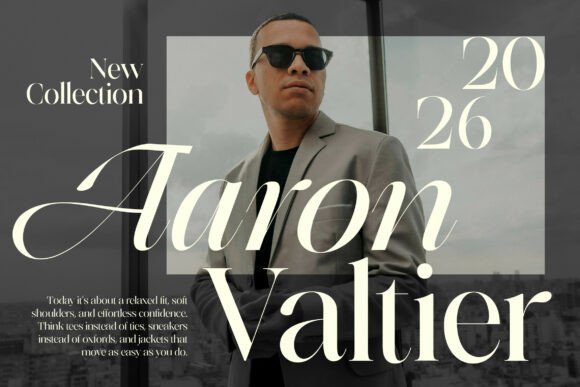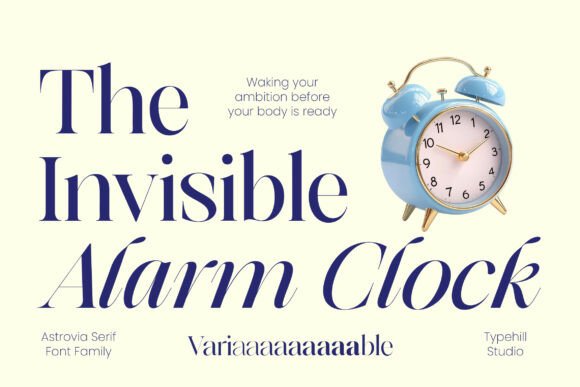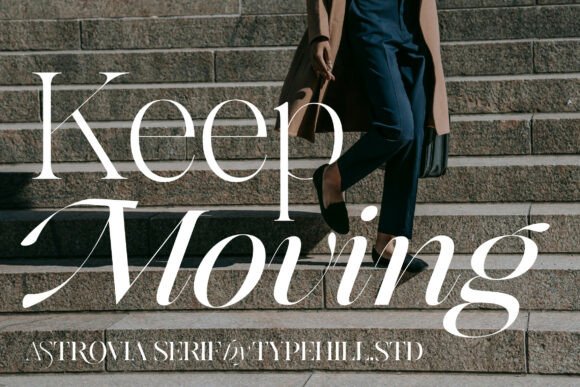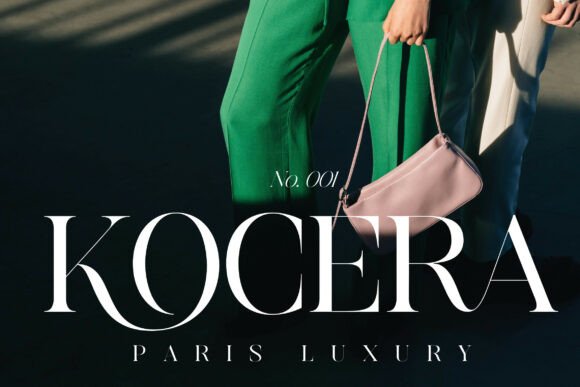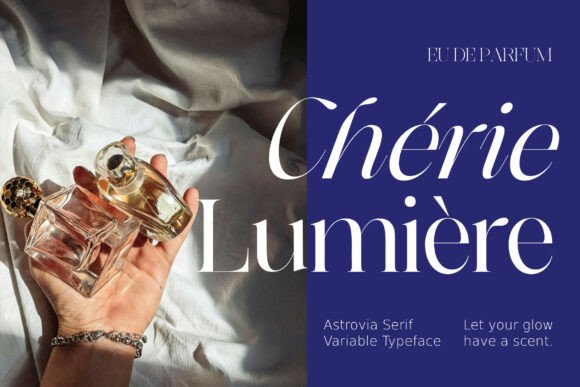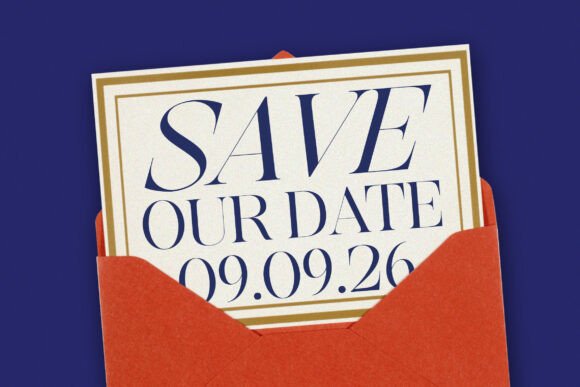
Unlocking the Power of Astrovia Serif Font
Imagine you’re pouring your heart and soul into a design project, but the right font is missing to bring it all together. That’s where the magic of Astrovia Serif Font comes in – a modern serif typeface family designed to deliver a perfect balance between classic elegance and contemporary character.
This extensive family of 18 complete styles, from Thin to Black, paired with smooth and dynamic Italics, offers exceptional versatility for a wide range of design applications. With Astrovia Serif Font, you can create professional-looking designs in long texts, editorials, brand identities, and sophisticated packaging designs.
As a Variable Font, Astrovia Serif Font allows you to adjust weight and style across a broad typographic spectrum freely – creating smooth transitions from light to bold in a single, efficient file. This makes it an invaluable tool for designers looking to elevate their projects with a touch of sophistication and style.
- Font Family: Astrovia Serif
- Unique Characteristics: Astrovia Serif Font features a classic, elegant design with refined details, making it ideal for use in corporate branding, publishing, and advertising materials.
Astrovia Serif Font Review
I’ve had the chance to work with the Astrovia Serif Font, and here’s my honest take on it. Overall, I think it’s a solid addition to any designer’s toolkit.
- Unique aesthetic: The Astrovia Serif Font has a distinct, otherworldly feel to it that sets it apart from more traditional serif fonts.
- High legibility: Despite its unique design, the font is still highly legible, making it a great choice for body text and titles.
- Limited language support: The font seems to be optimized for Latin-based languages, and I’ve noticed some issues with character mapping for non-Latin scripts.
- Not ideal for small text: While the font is highly legible, it can become difficult to read when used in very small sizes.
Overall, I think the Astrovia Serif Font is a great choice for designers looking for something unique and eye-catching. While it may have some limitations, it’s a solid addition to any toolkit and can help add some visual interest to your projects.
Astrovia Serif is a versatile font that can be used for a variety of purposes, including:
– Headings and titles
– Body text for publications and websites
– Menus and navigation elements
For optimal results, use Astrovia Serif in conjunction with a clean and simple design aesthetic.